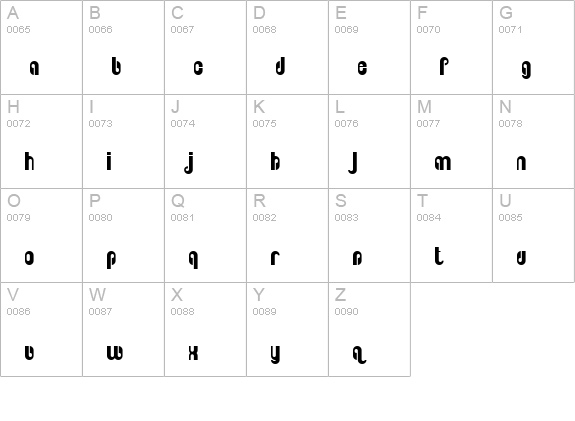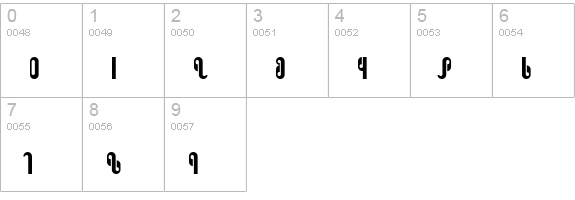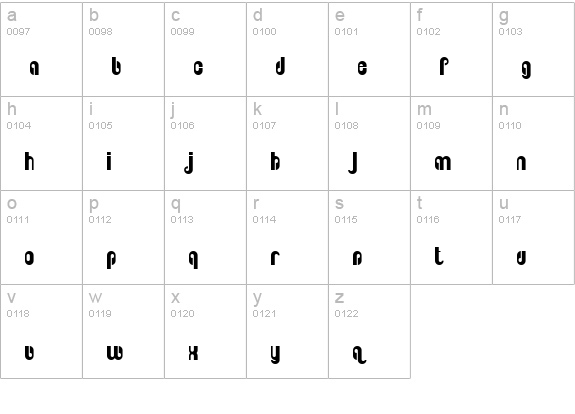
Pseudolux Font Details
Pseudolux font is a modern and sleek typeface that exudes elegance and sophistication. With its clean lines and stylish curves, this font is perfect for a wide range of design projects, from branding to editorial design. The versatility of Pseudolux font allows it to be used in both professional and creative contexts, making it a must-have for any designer looking to make a statement. What sets Pseudolux font apart is not only its striking design, but also the fact that it is completely free to use. That's right, this high-quality font can be downloaded at no cost from FontsMarket.com, making it accessible to designers of all skill levels and budgets. Whether you're working on a personal project or a client commission, Pseudolux font is the perfect choice for adding a touch of sophistication to your designs. With its timeless aesthetic and effortless readability, Pseudolux font is sure to elevate any project it is used in. Download it today and see for yourself why this font is a favorite among designers worldwide.